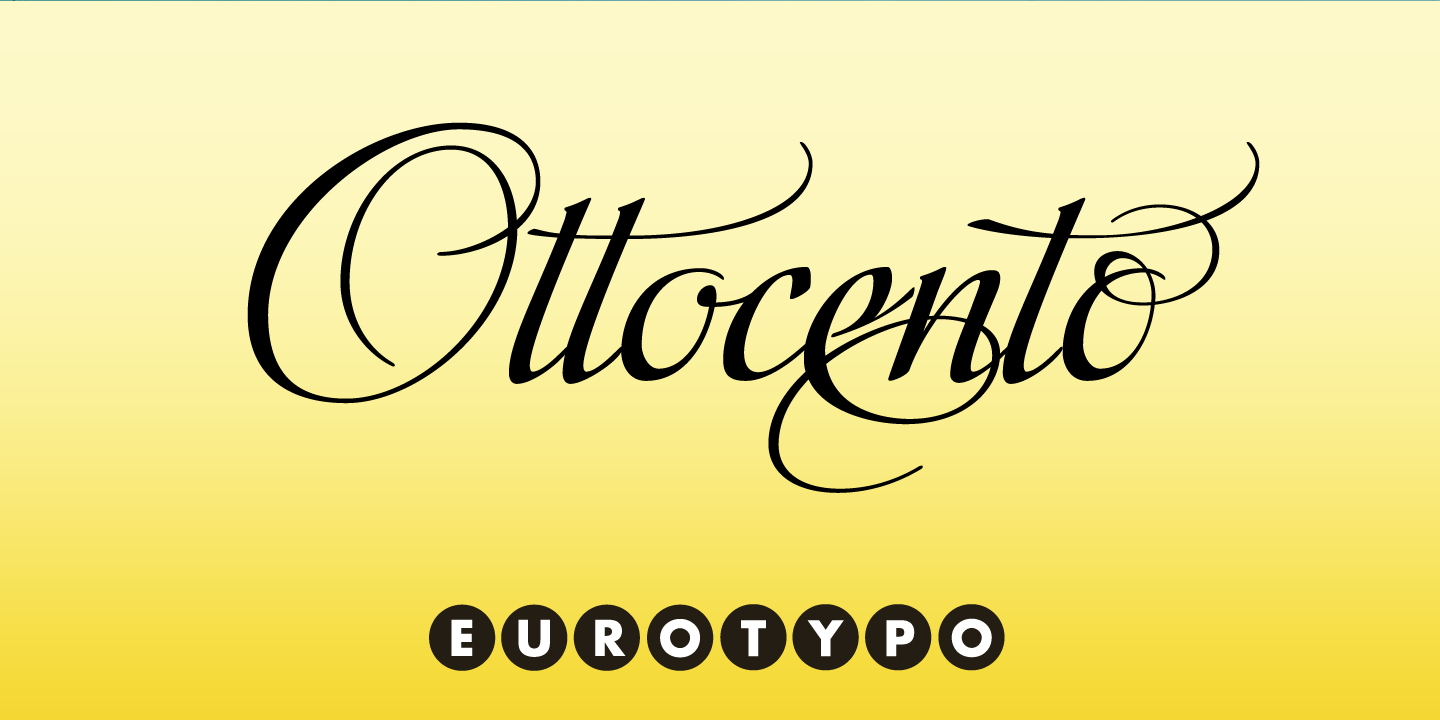
Ottocento Font is perfect for historical design projects including 19th-century period exhibitions, vintage Italian restaurants, classical opera houses, historical museums, Victorian-era themed venues, traditional European heritage sites, period architecture firms, and authentic cultural heritage campaigns. This distinguished typeface excels in classical music venues, vintage wine estates, historical preservation societies, traditional Italian establishments, and projects that celebrate 19th-century elegance and European cultural sophistication.
What makes Ottocento Font exciting is its authentic period character that perfectly captures the essence of 19th-century Italian elegance and classical European sophistication. The font features traditional letterforms with period-appropriate styling that reflects the cultural refinement and artistic excellence of the Ottocento era. Its classical design elements embody the spirit of European heritage and historical elegance, making it perfect for projects that need to convey tradition, cultural depth, and connection to 19th-century artistic movements. The carefully crafted period details create an atmosphere of historical authenticity and classical sophistication.
Ottocento Font comes in multiple family variations including classical, traditional, elegant, and period styles. Each weight maintains the distinctive 19th-century character while offering different levels of historical intensity and cultural presence. The font family includes period alternates, classical ligatures, and heritage variations that provide designers with comprehensive options for creating truly authentic and historically accurate typographic compositions that honor European traditions.